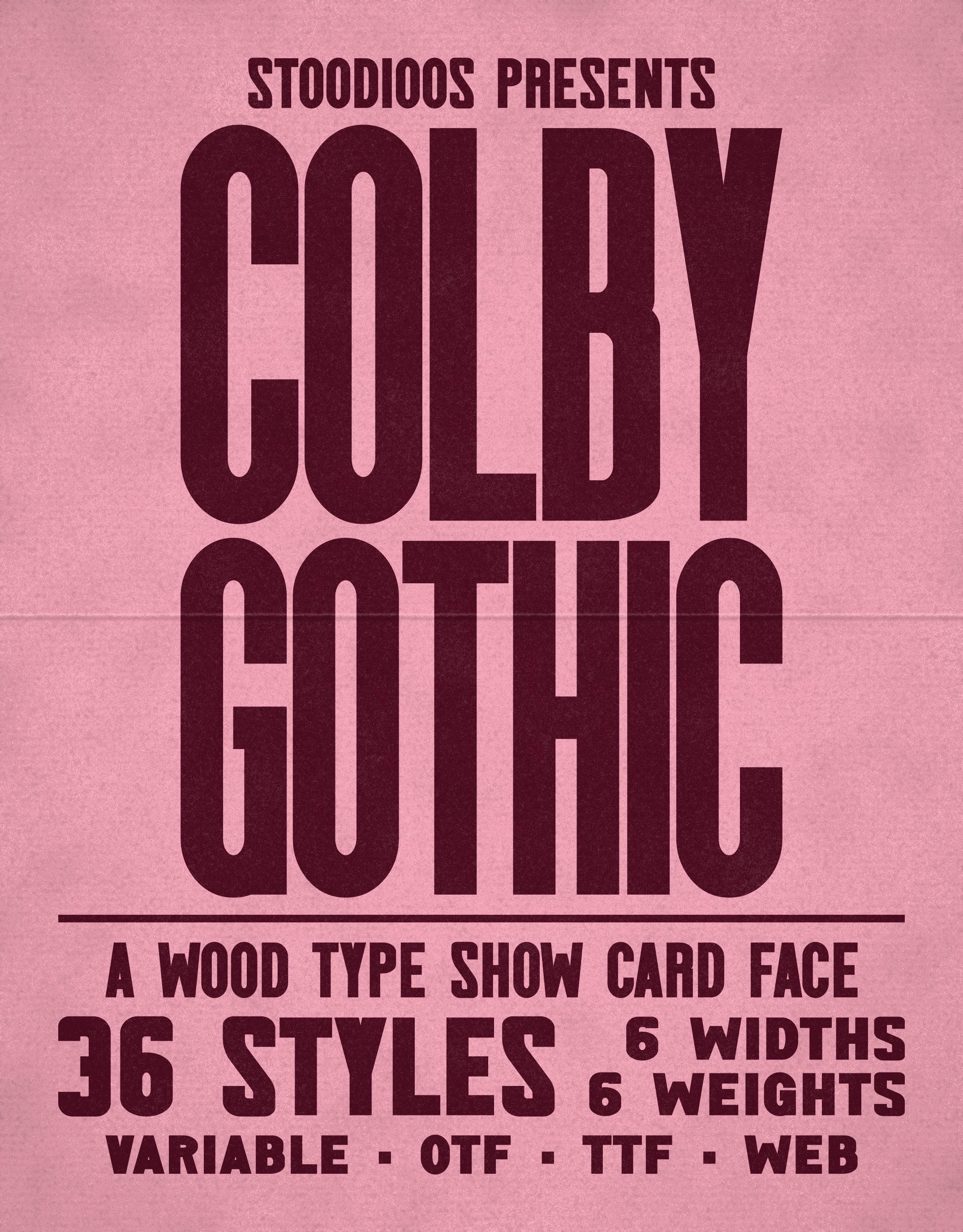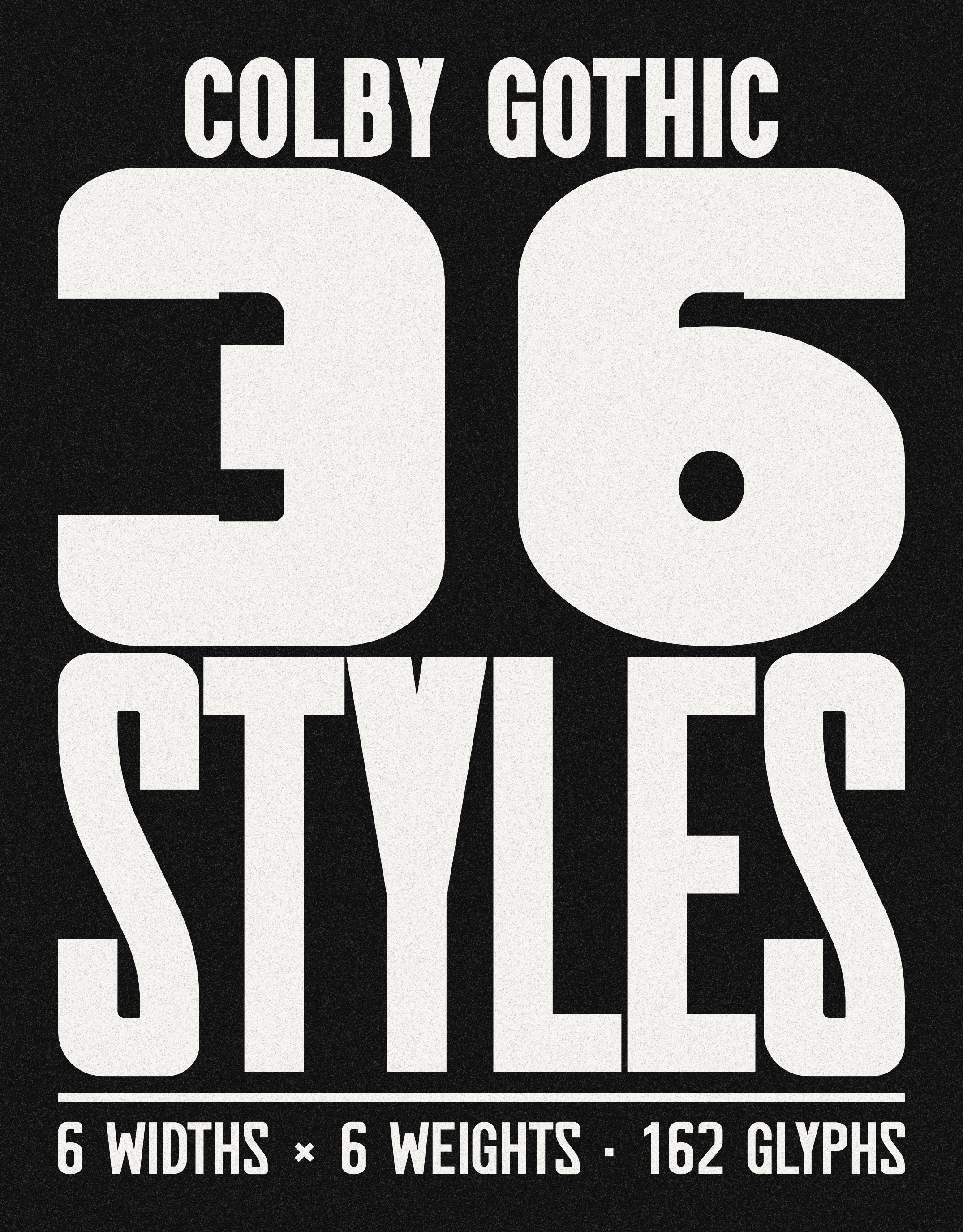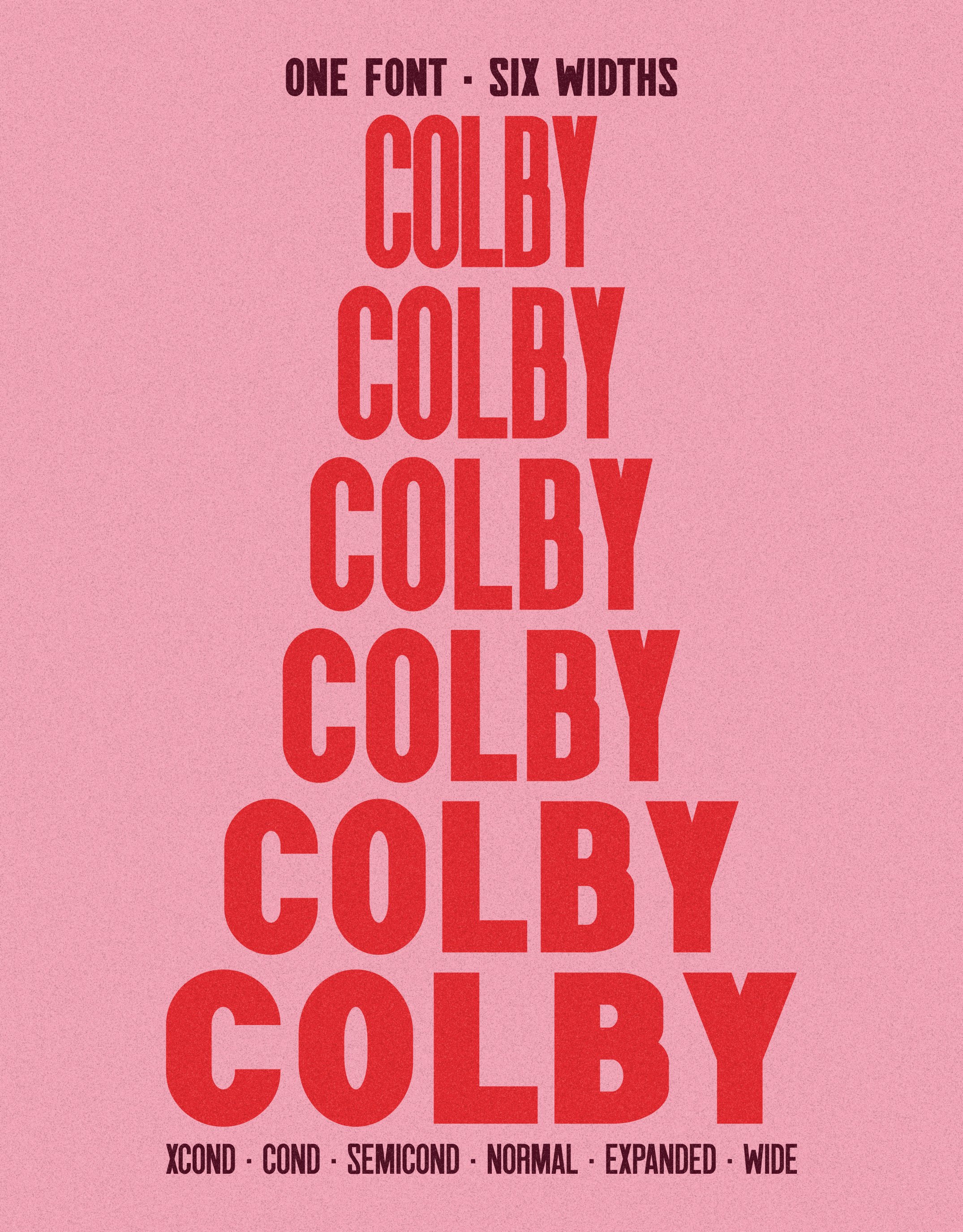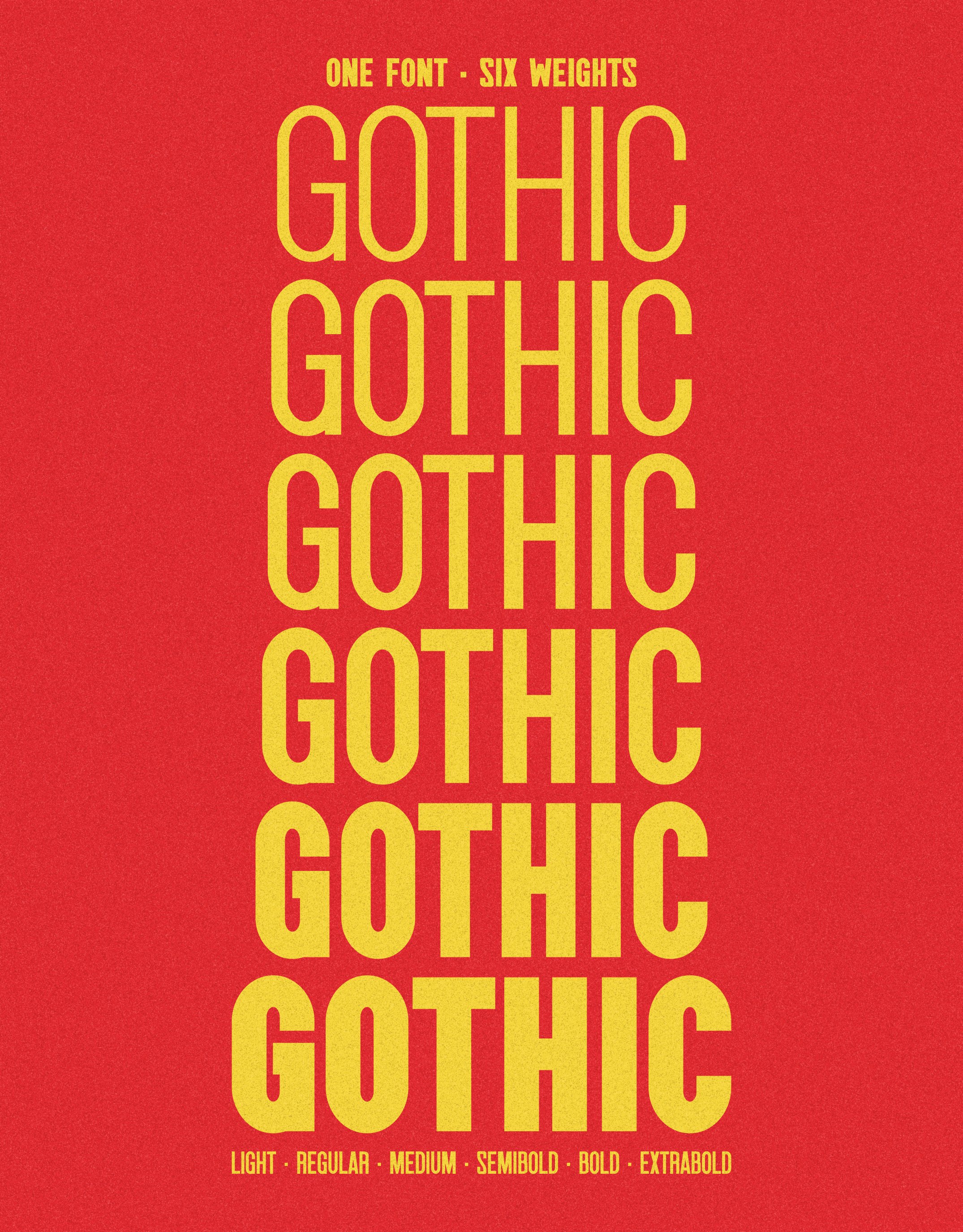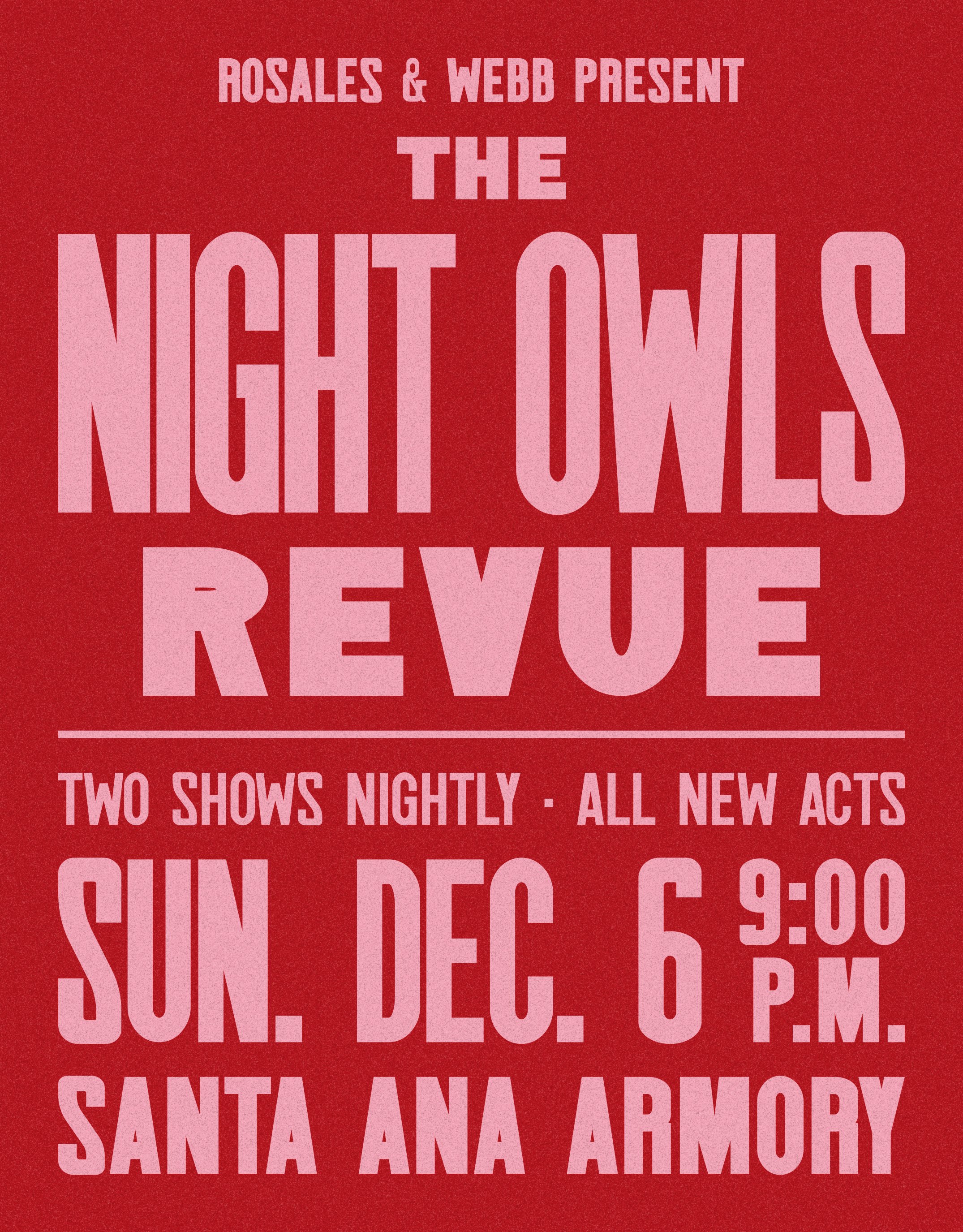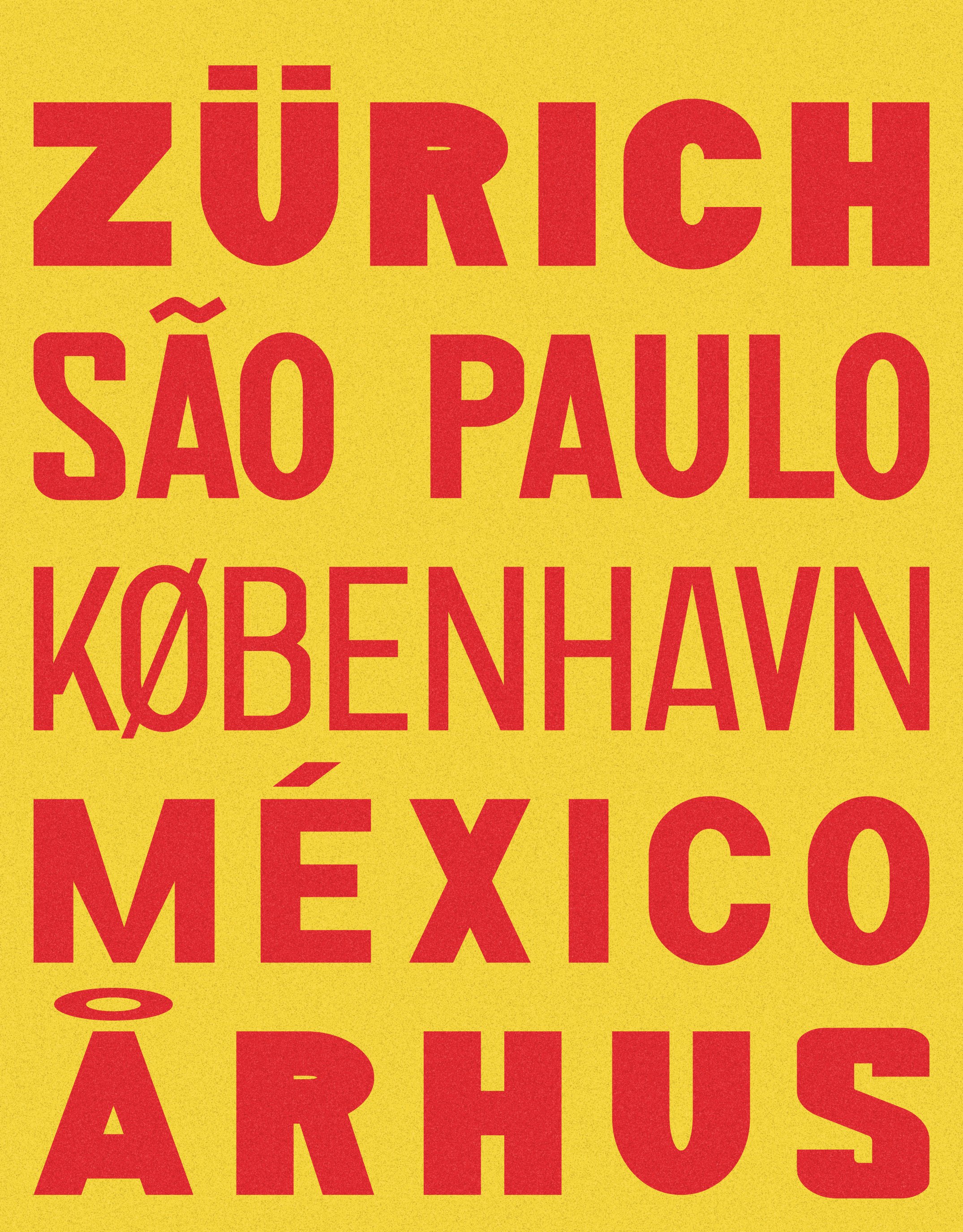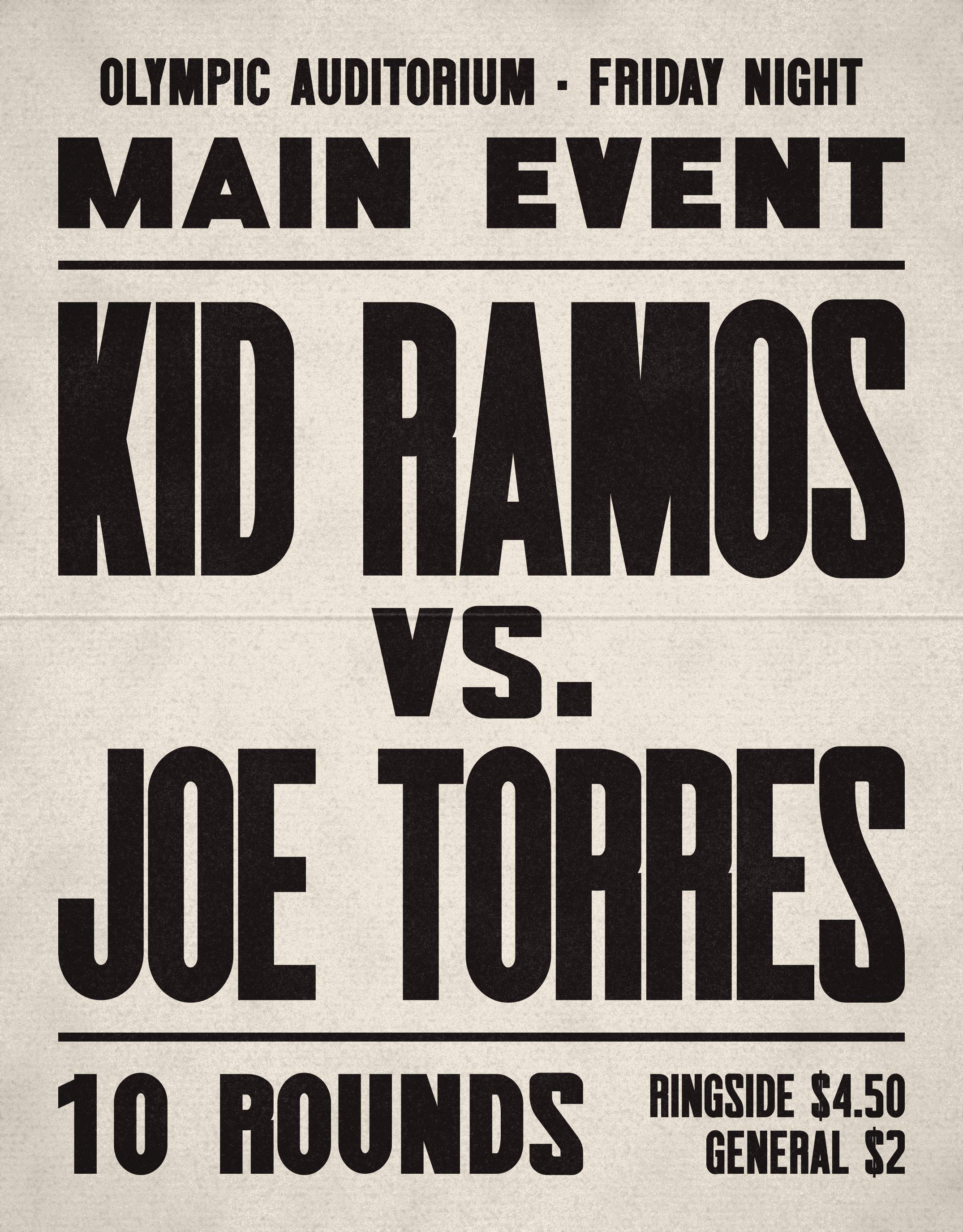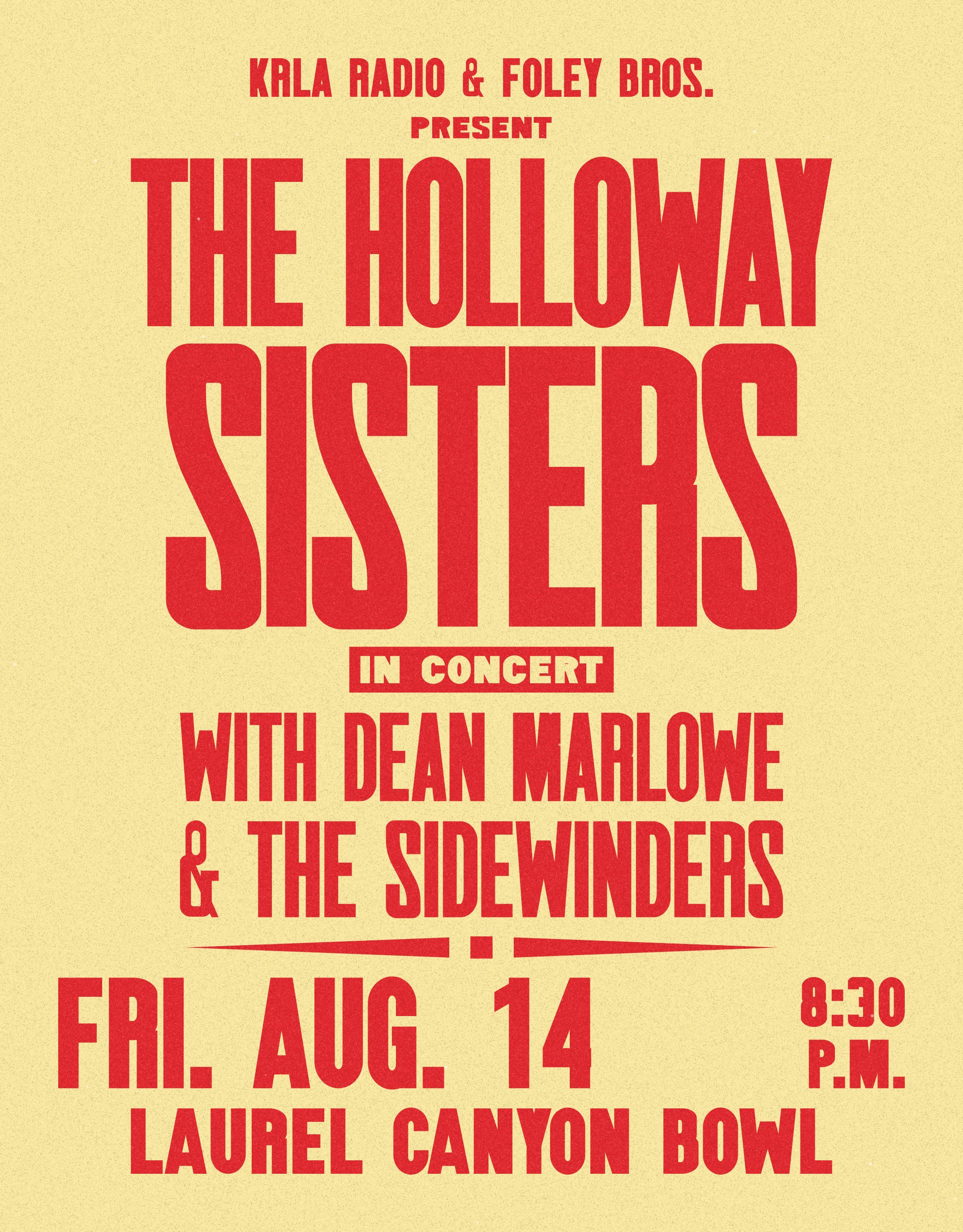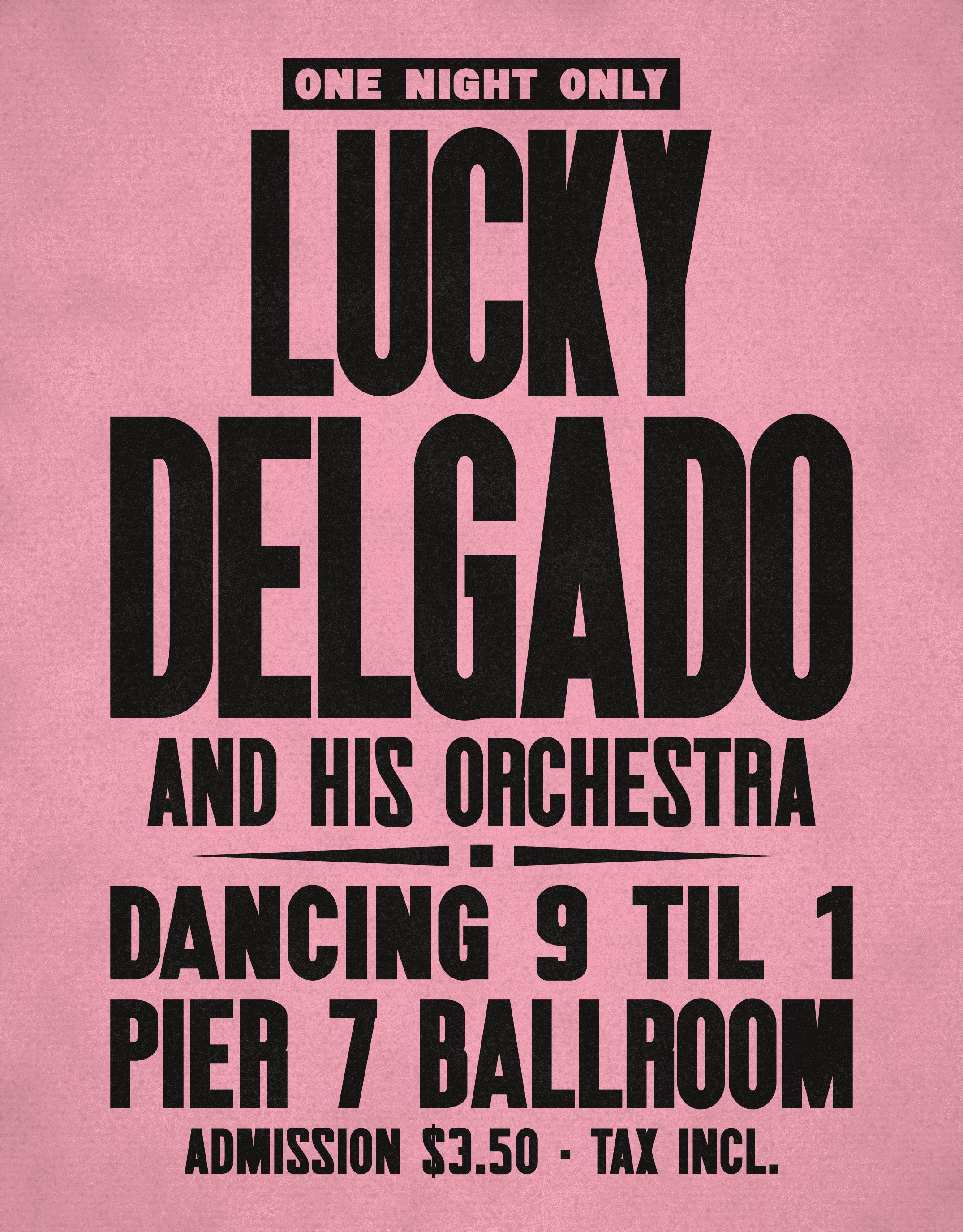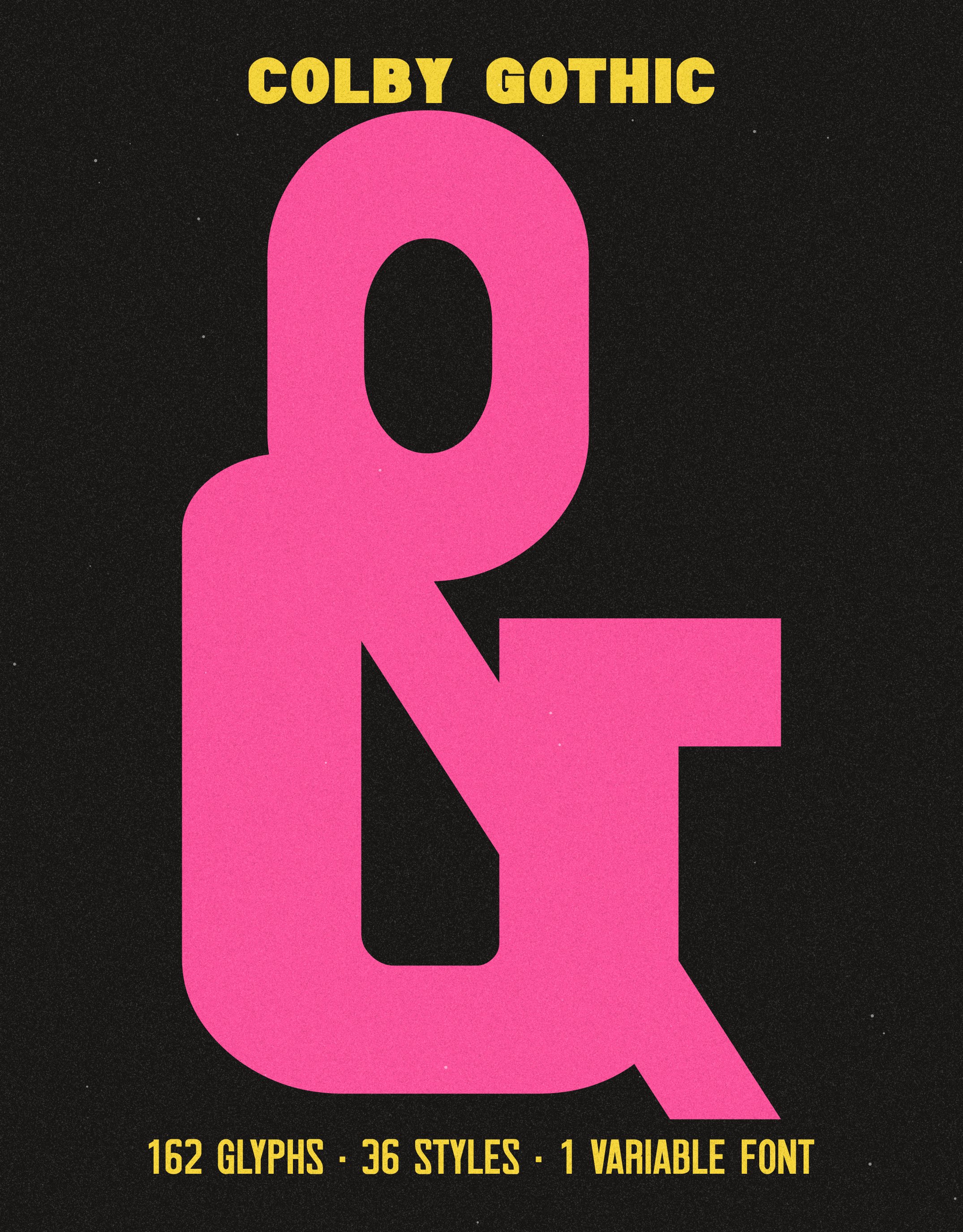
COLBY
GOTHIC
A poster gothic cut for the show card: loud, all caps and built to fill a line. Each width is drawn on its own rather than stretched, so the extra condensed keeps open counters and the wide keeps its weight. Thirty-six styles, one variable font across width and weight, accented capitals for Western European languages, tabular figures and kerning throughout. Lowercase keys set capitals, so it types straight in.
36 styles · 6 widths × 6 weights